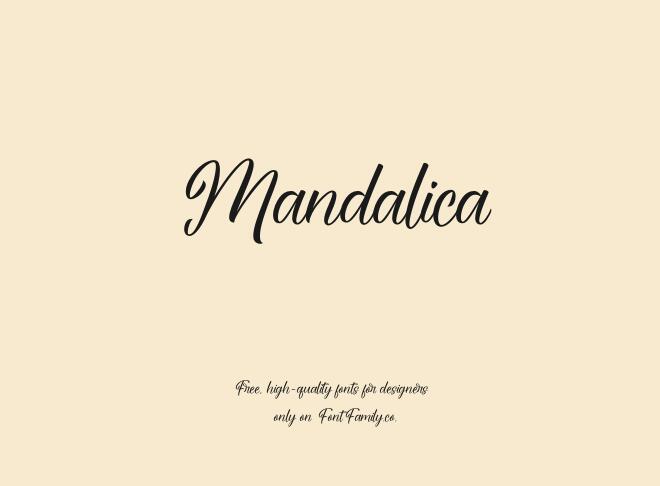
Mandalica Font
The Mandalica Font is a stunning script font with a decorative touch that makes it stand out from the crowd. Its unique style, reminiscent of calligraphy and hand-drawn designs, brings a whimsical charm that is perfect for event invitations, logo designs, and creative branding. Compared to other script fonts, Mandalica Font offers a more artistic flair, making it an excellent choice for projects that call for a touch of creativity and individuality. Despite its decorative nature, it maintains a high level of readability, ensuring your message is always clear. Its versatile nature makes it a great choice for both print and digital designs. If you're looking to add a creative, unique touch to your designs, Mandalica Font is a perfect choice.